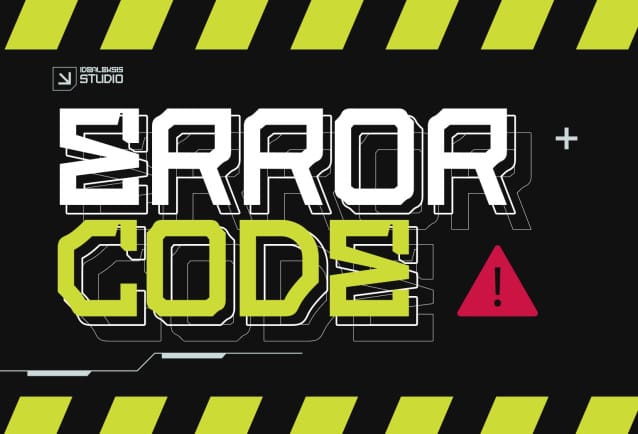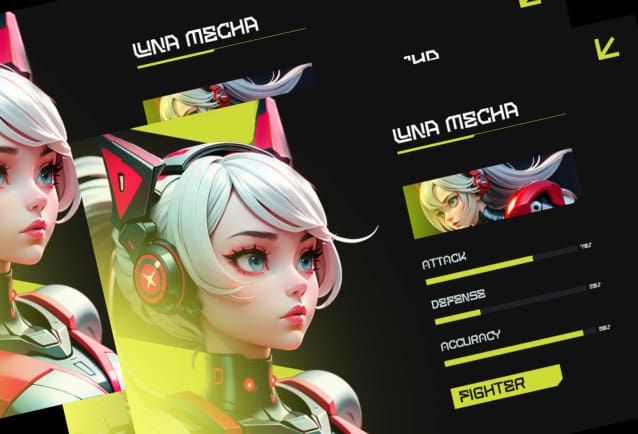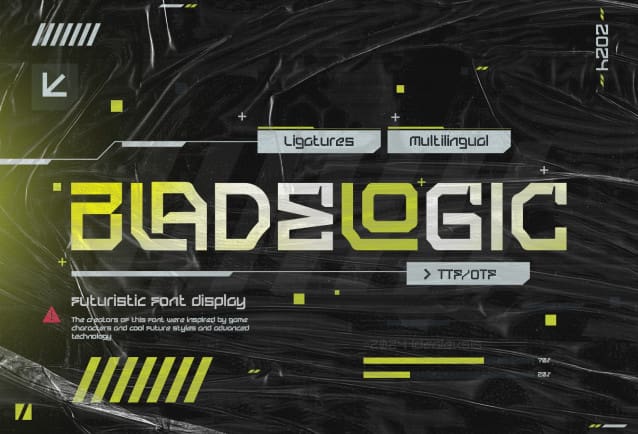
Blade Logic Font
Blade Logic Font is a cutting-edge and futuristic typeface that encapsulates the essence of the cyberpunk aesthetic. Designed with a forward-looking vision, this font merges sleek, angular lines with a sense of technological precision, creating a visually striking and avant-garde appearance. The characters of Blade Logic exude a sense of high-tech sophistication, reminiscent of advanced computer systems and futuristic interfaces.